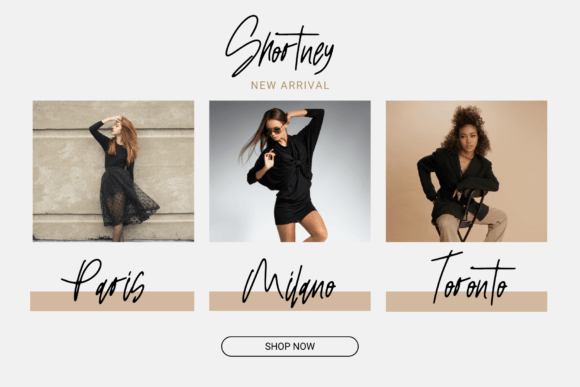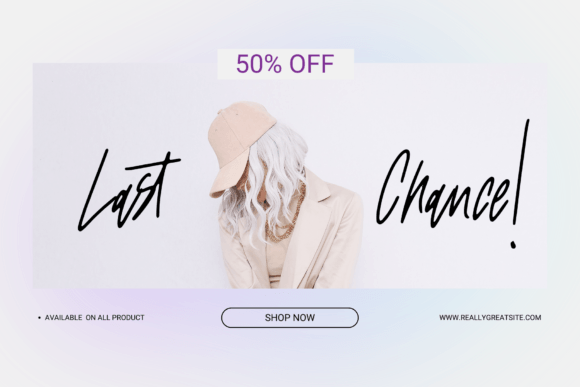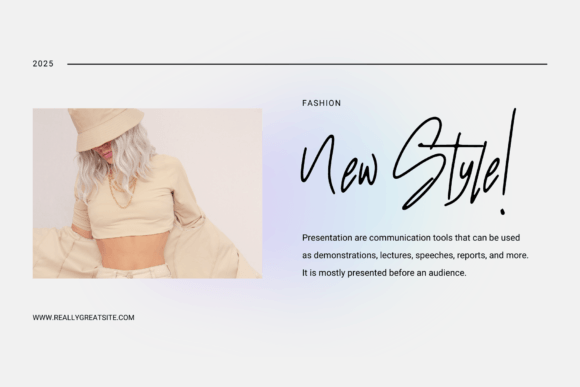
Introduction to Million Stars Font
Million Stars is a thin lettered and graceful monoline script font.
👤 Author Creaditive Design
Fall for its ravishing style and use it to create gorgeous signs, headings, eye-catching social media posts, and much more .
Why Choose Million Stars Font?
Million Stars Font offers exceptional quality and versatility, making it a valuable addition to your design toolkit. Whether you’re creating for personal projects or commercial use, Million Stars Font delivers professional results.